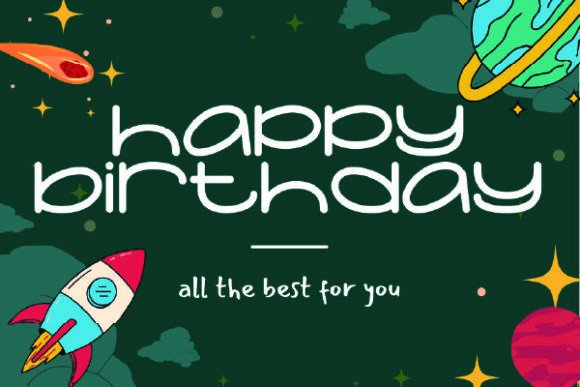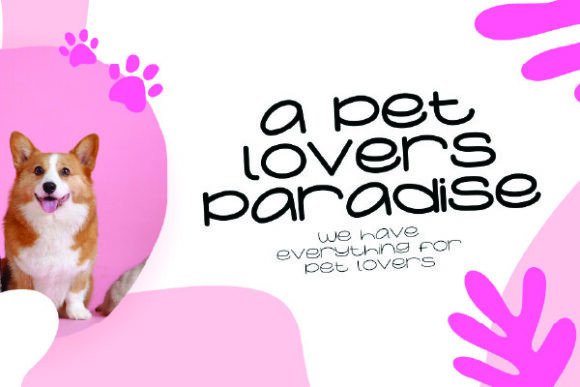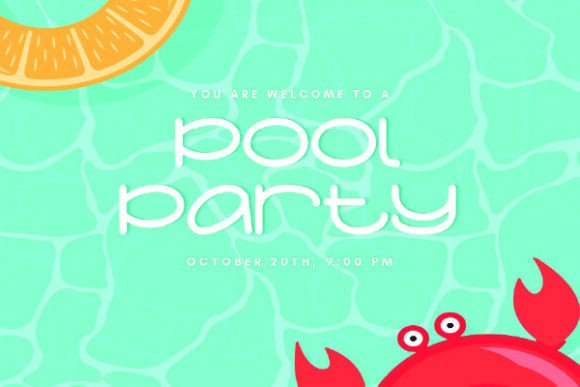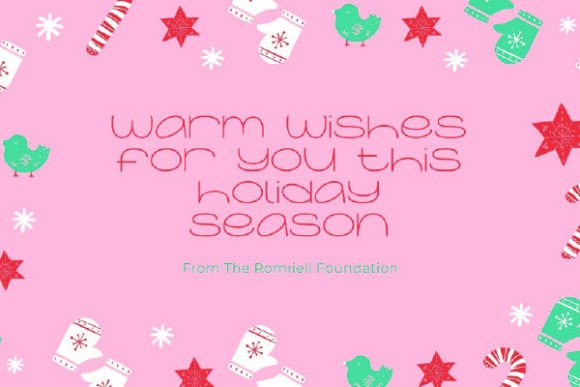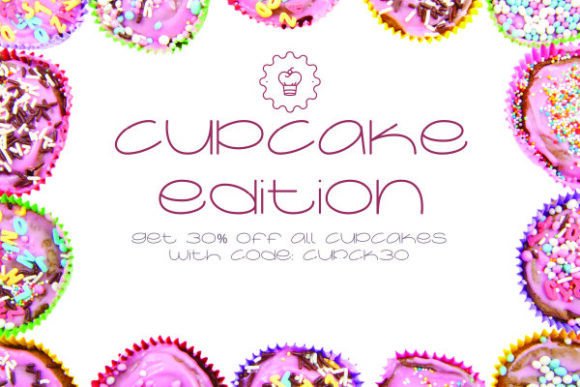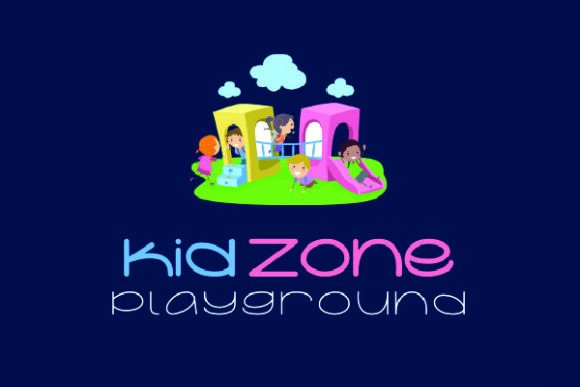
The Apple Pie Font: A Playful Addition to Your Design Toolbox
I’ll never forget the time I was working on a children’s book project, and my client asked me to create a custom font that would bring the story to life. I spent hours scouring the internet for the perfect font, but nothing seemed quite right. That’s when I stumbled upon the Apple Pie Font, and it was love at first sight! ✨
This playful handwritten font has a way of adding a dose of fun and creativity to any project. Its informal, hand-drawn style brings a personal touch to designs, making it perfect for playful and imaginative projects. In this article, I’ll share my experience with the Apple Pie Font, including its features, how to use it, and some similar fonts you might enjoy.
• ✨ Unique and playful character set that’s perfect for children’s books and quirky branding
• ✅ Easy to read and understand, even at small font sizes
• 🎉 Extensive OpenType features, including glyphs and stylistic alternates
• 👍 Highly versatile and adaptable to different design styles
While the Apple Pie Font is an excellent addition to any design project, there are a few quirks to be aware of: 🤔
• ⚠️ Some characters may not work well at very small font sizes (less than 10pt)
• ⚠️ Limited suitability for formal or corporate designs
The Story Behind the Apple Pie Font
The Apple Pie Font was designed with the intention of creating a playful, handwritten font that would bring a personal touch to designs. The designer wanted to create a font that would be perfect for children’s books, quirky branding, and casual designs. With its extensive OpenType features and highly versatile design, the Apple Pie Font is sure to become a favorite in your design toolbox.
Font Name Apple Pie Font
Author Rivka Wilkins
Q: What type of projects is the Apple Pie Font best suited for?
A: The Apple Pie Font is perfect for children’s books, quirky branding, casual designs, and any project that requires a playful, handwritten font.
Q: Is the Apple Pie Font easy to read?
A: Yes, the Apple Pie Font is designed to be easy to read and understand, even at small font sizes.